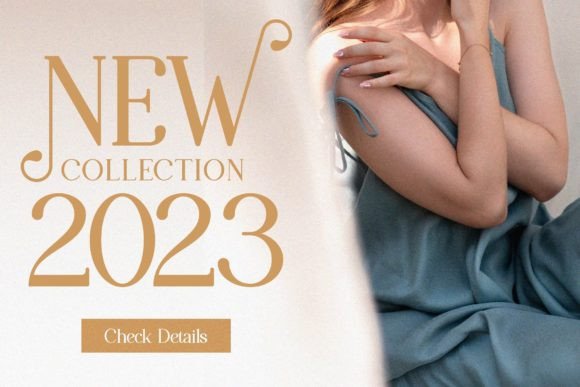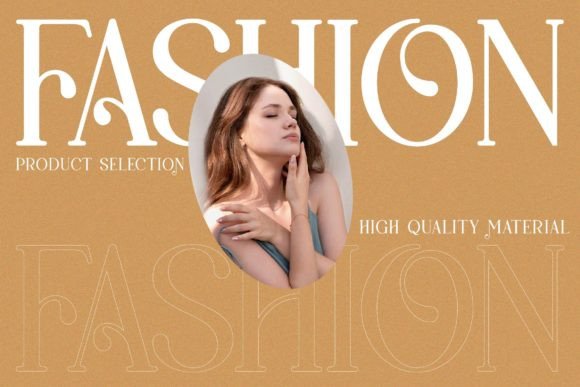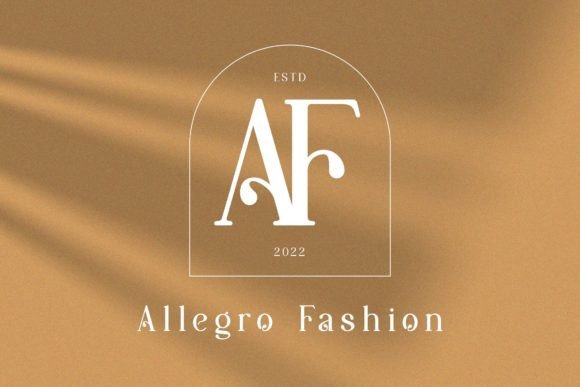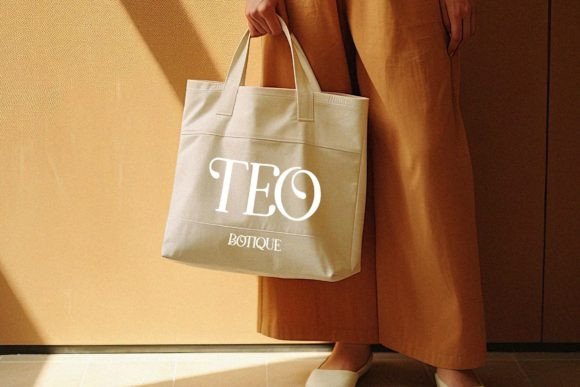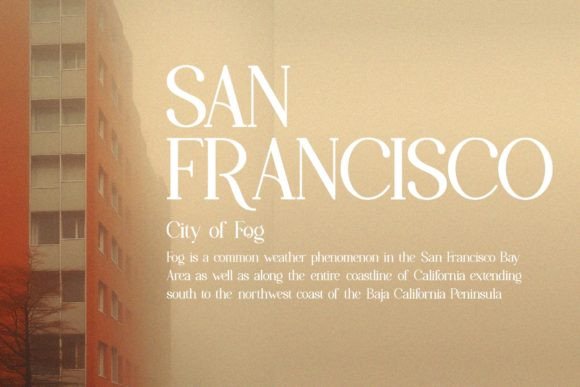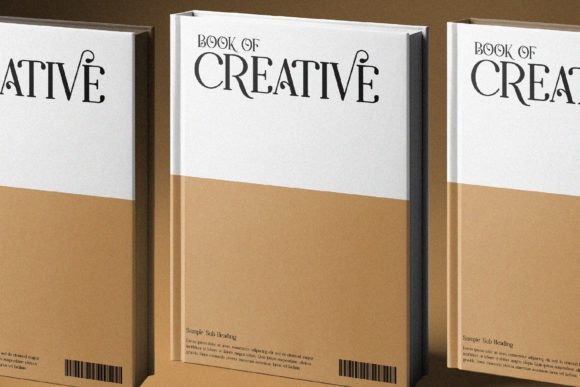
Introduction to Papolina Font
Papolina | Modern Serif Font suitable for any projects such as logos, branding projects, homeware designs, product packaging, mugs, quotes, posters, shopping bags, t-shirts, book covers, name cards, invitation cards, greeting cards, labels, photography, watermark, special events, and all your other lovely projects that need a Modern Serif Font taste.
Key Features of Papolina Font
Why Choose Papolina Font?
Papolina Font offers exceptional quality and versatility, making it a valuable addition to your design toolkit. Whether you’re creating for personal projects or commercial use, Papolina Font delivers professional results.